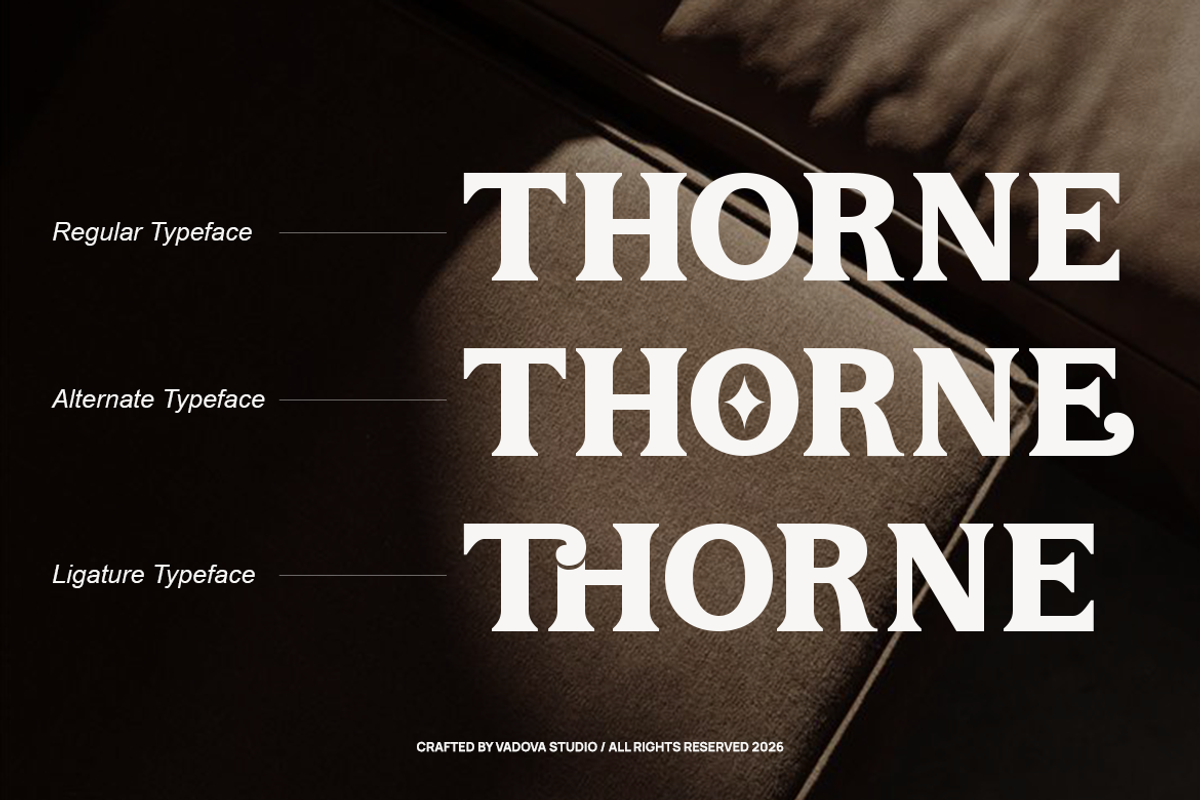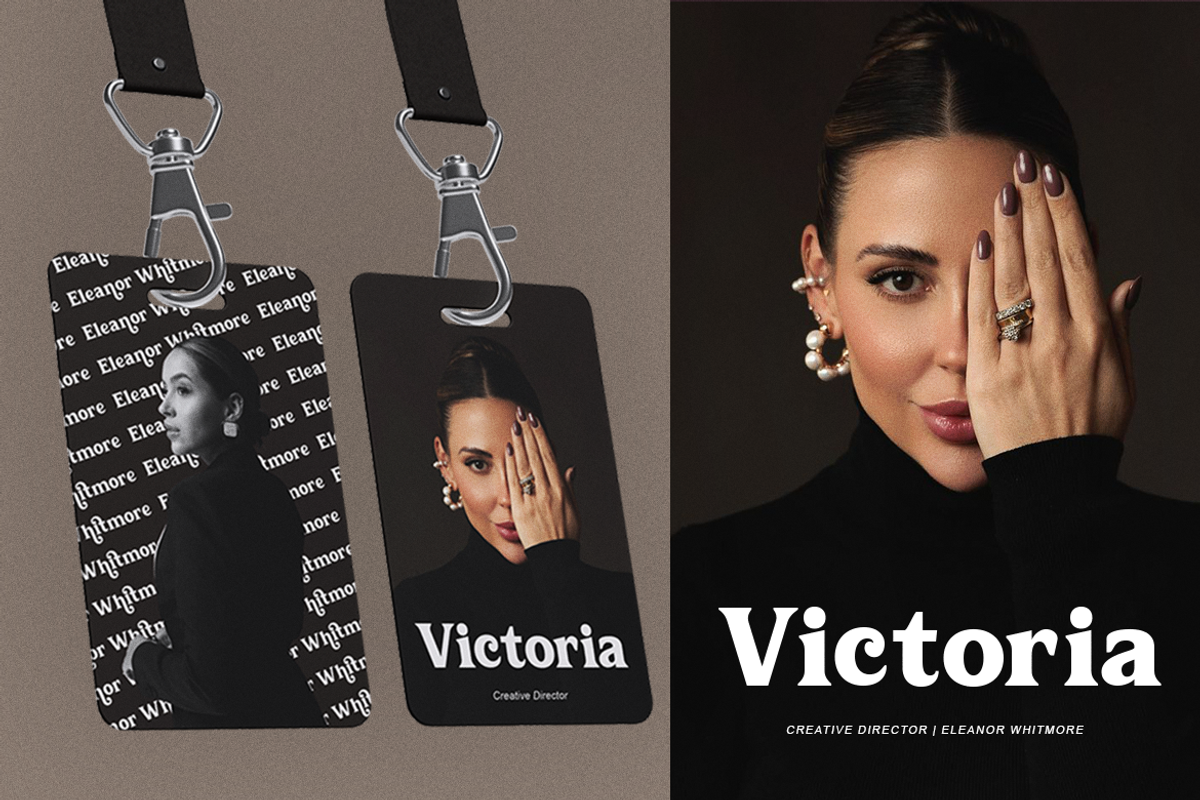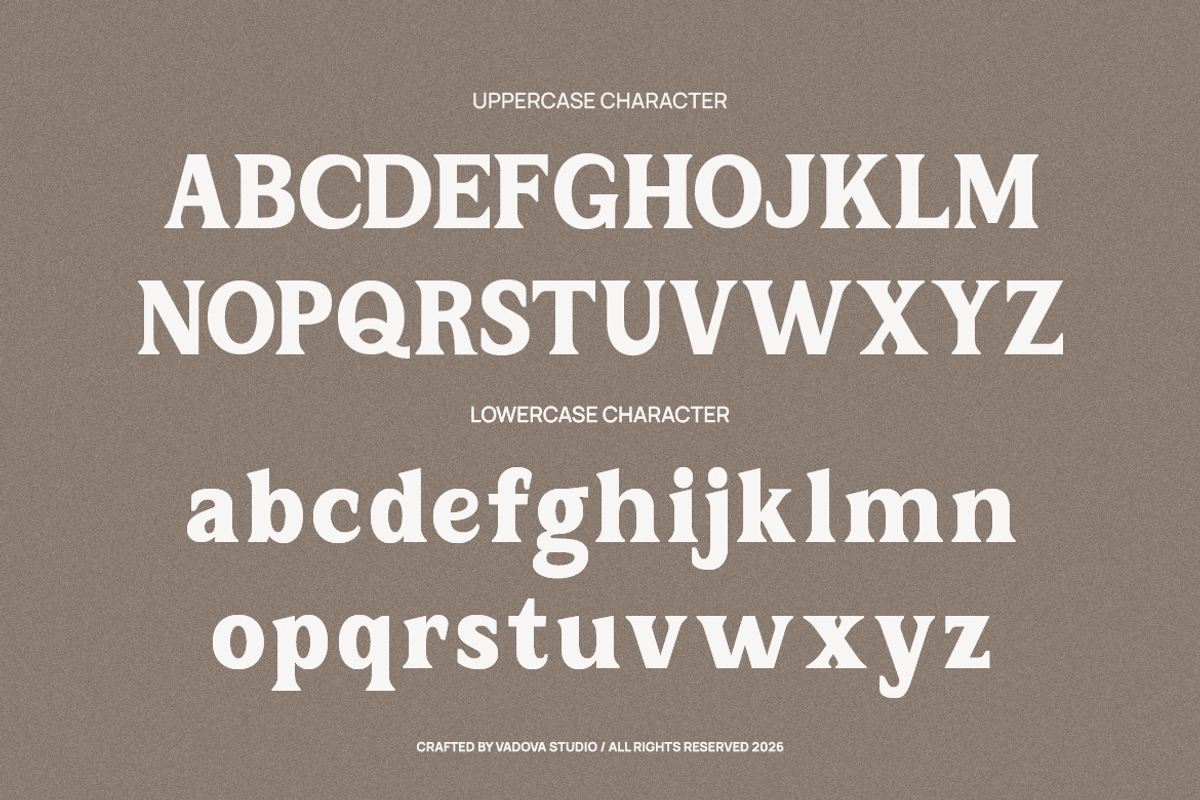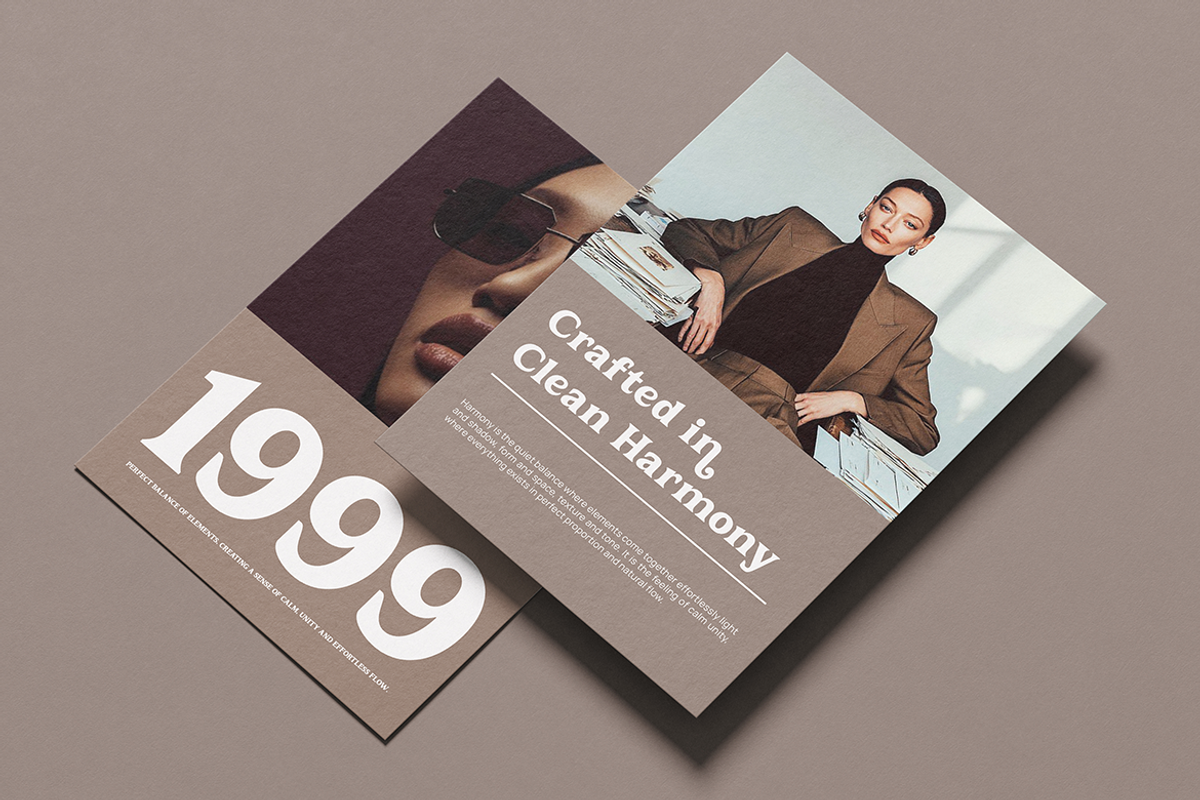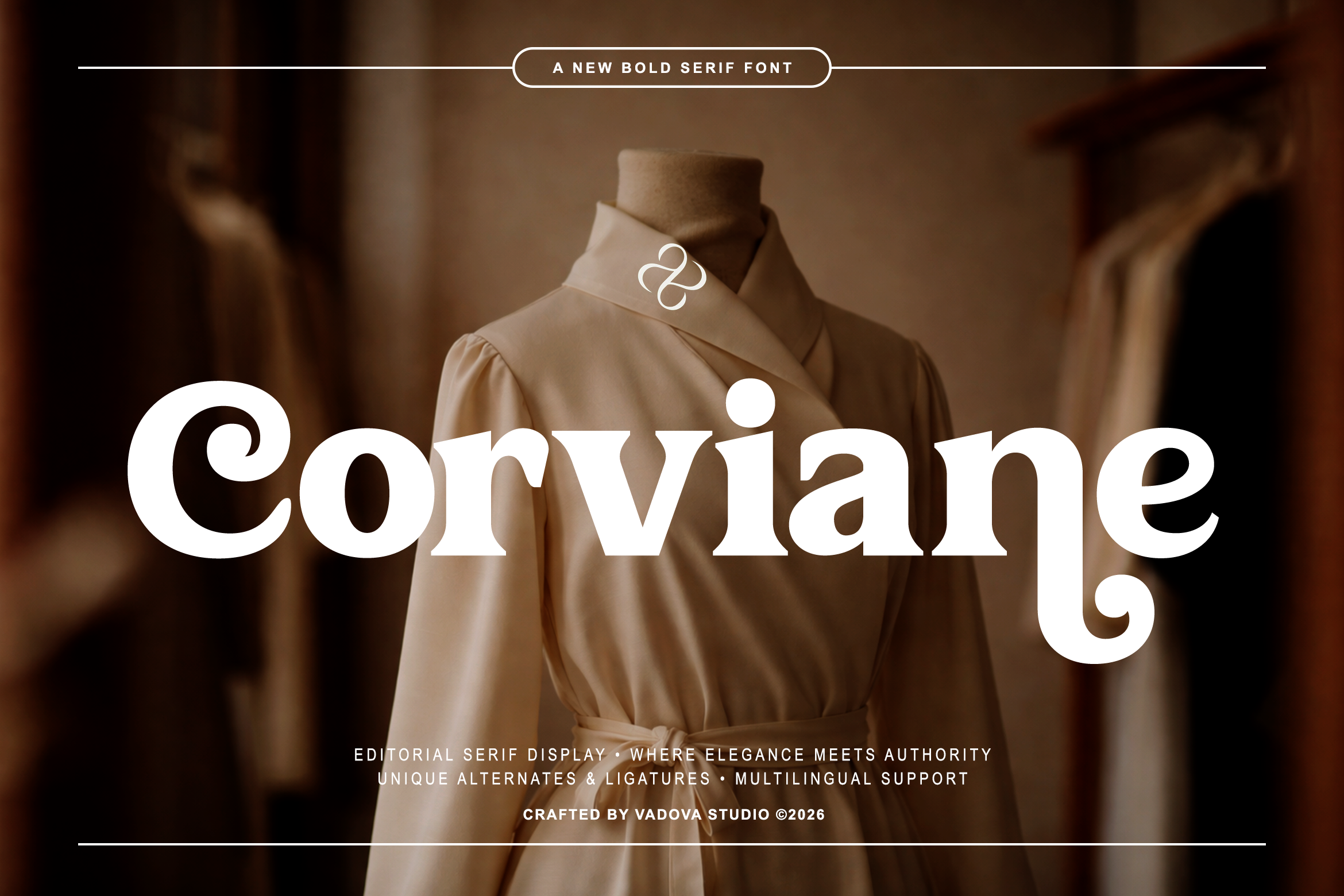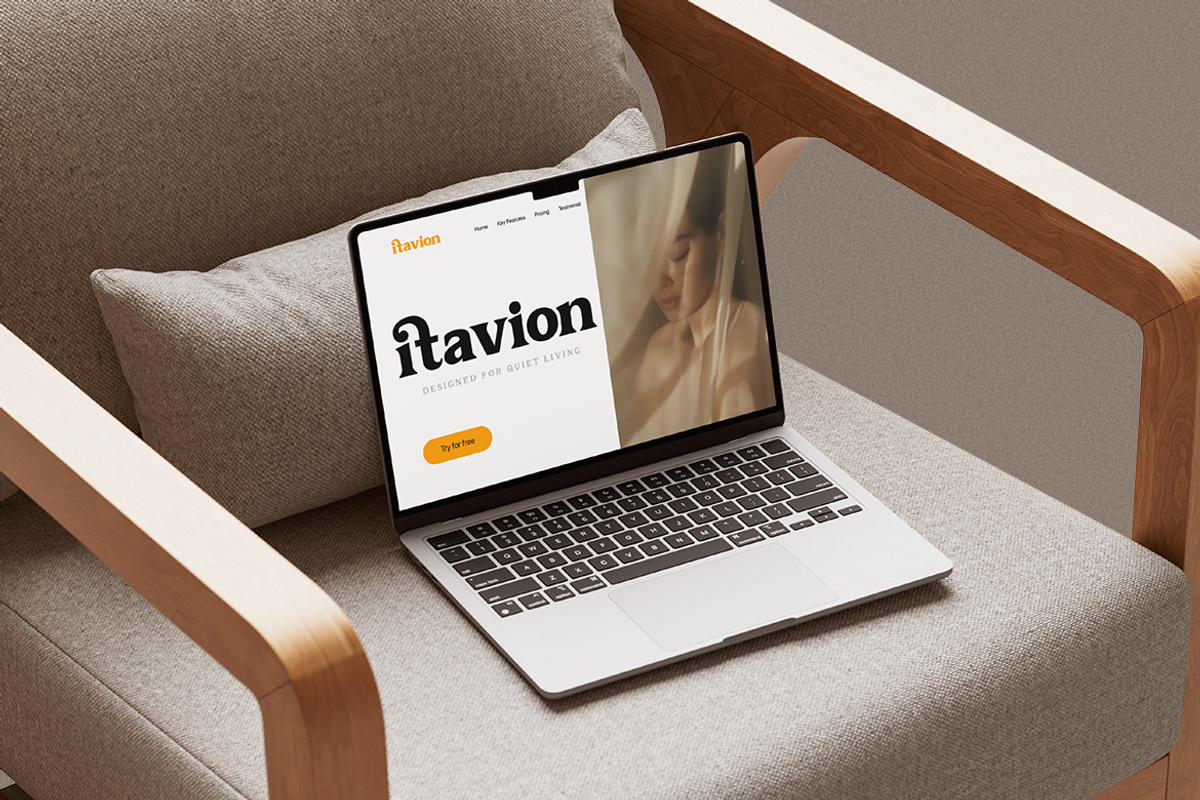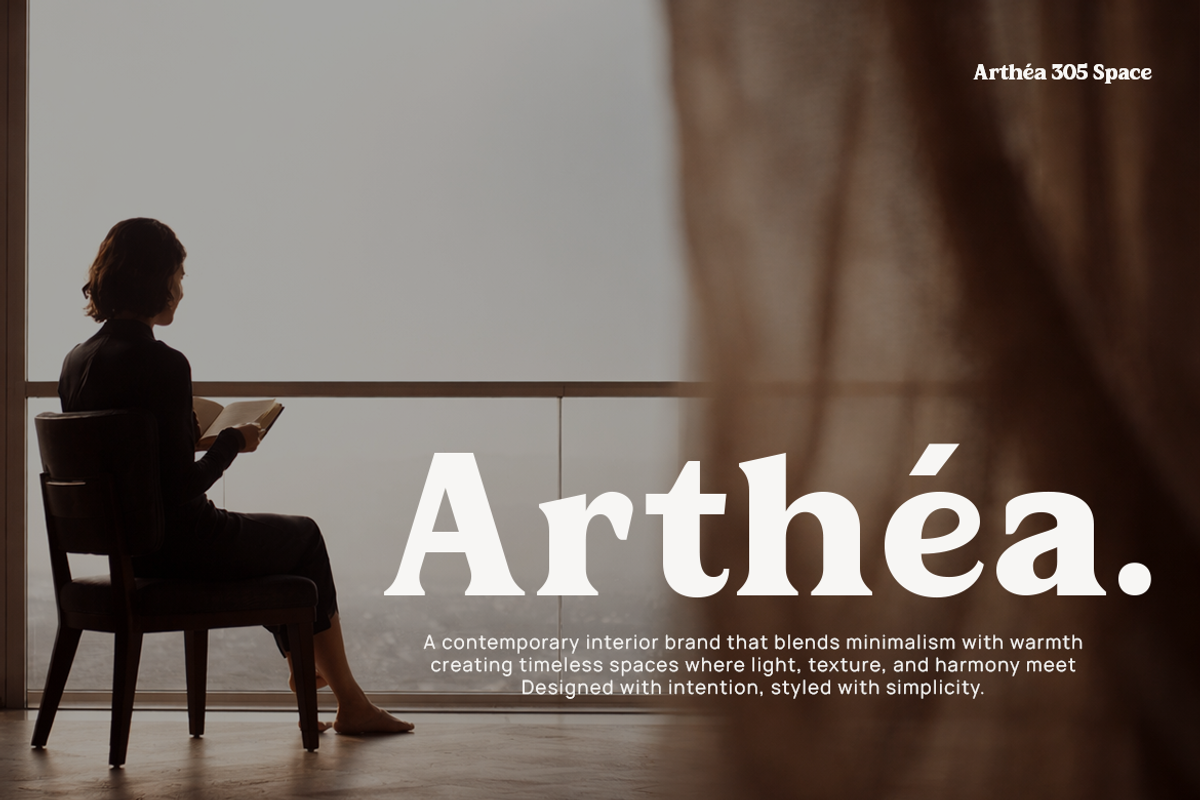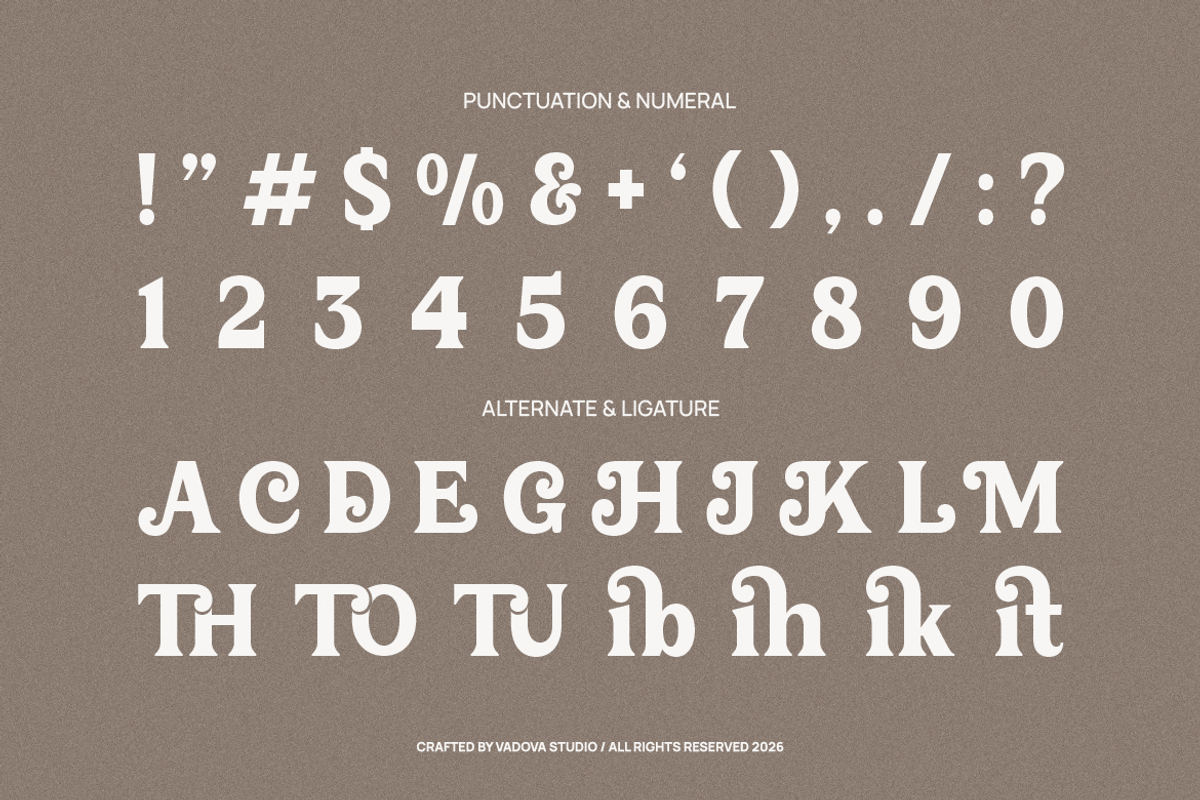
Corviane Bold Serif Font
Corviane is a bold editorial serif typeface where elegance meets authority. Designed with strong vertical stress, sculpted curves, and confident proportions, this display serif delivers a striking presence across luxury branding and high-impact editorial design. Its refined structure balances bold weight with graceful detailing, making it ideal for statement headlines, fashion campaigns, and premium visual identities.
Corviane is highly relevant for luxury branding, fashion labels, boutique identities, editorial layouts, and premium packaging. Its bold yet refined structure makes it especially effective for magazine headlines, logo design, advertising campaigns, and high-end product presentation. The typeface performs best in large sizes where its sculpted details and confident weight can fully shine.
- Bold serif construction with strong vertical stress for commanding presence
- High-contrast strokes that balance elegance with visual authority
- Sculpted, expressive curves that enhance its editorial sophistication
- Refined serif details and distinctive terminals for a premium character
- Carefully adjusted spacing optimized for impactful headlines and luxury branding
- Luxury brand identity systems seeking elegance with authority
- Fashion editorials and high-impact magazine headlines
- Premium logo design and boutique branding
- Upscale product packaging and beauty labels
- Advertising campaigns and sophisticated social media visuals